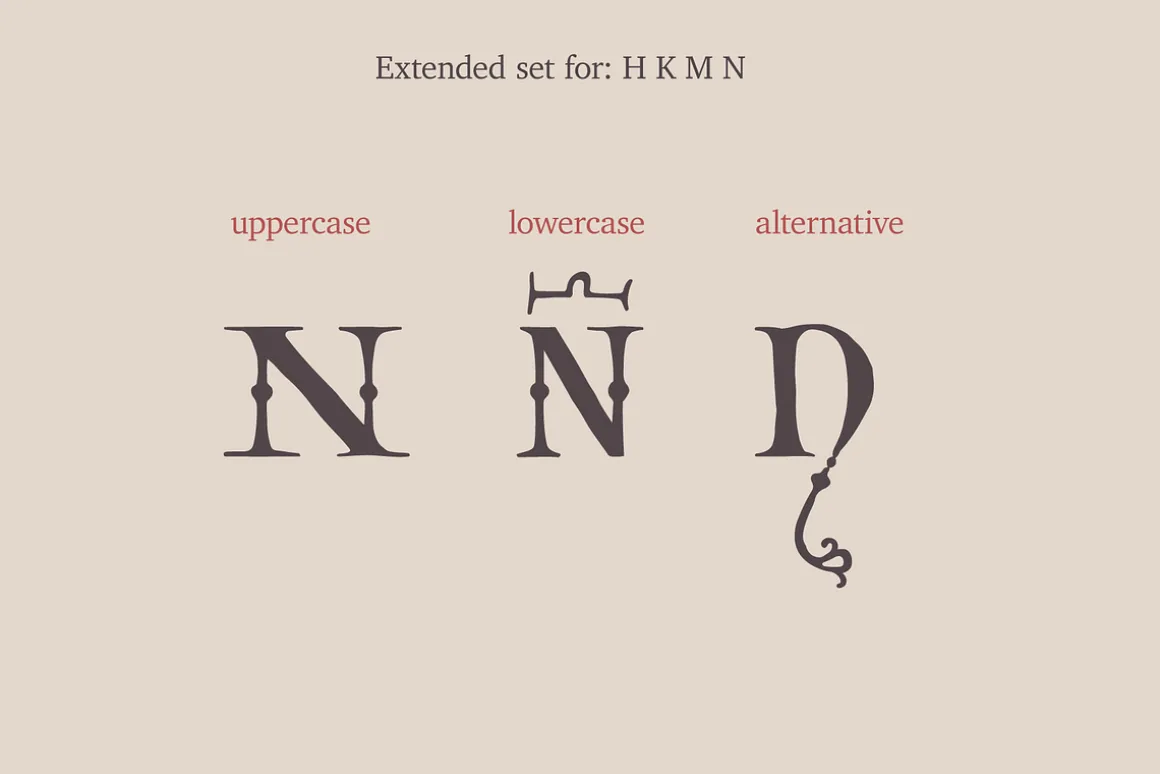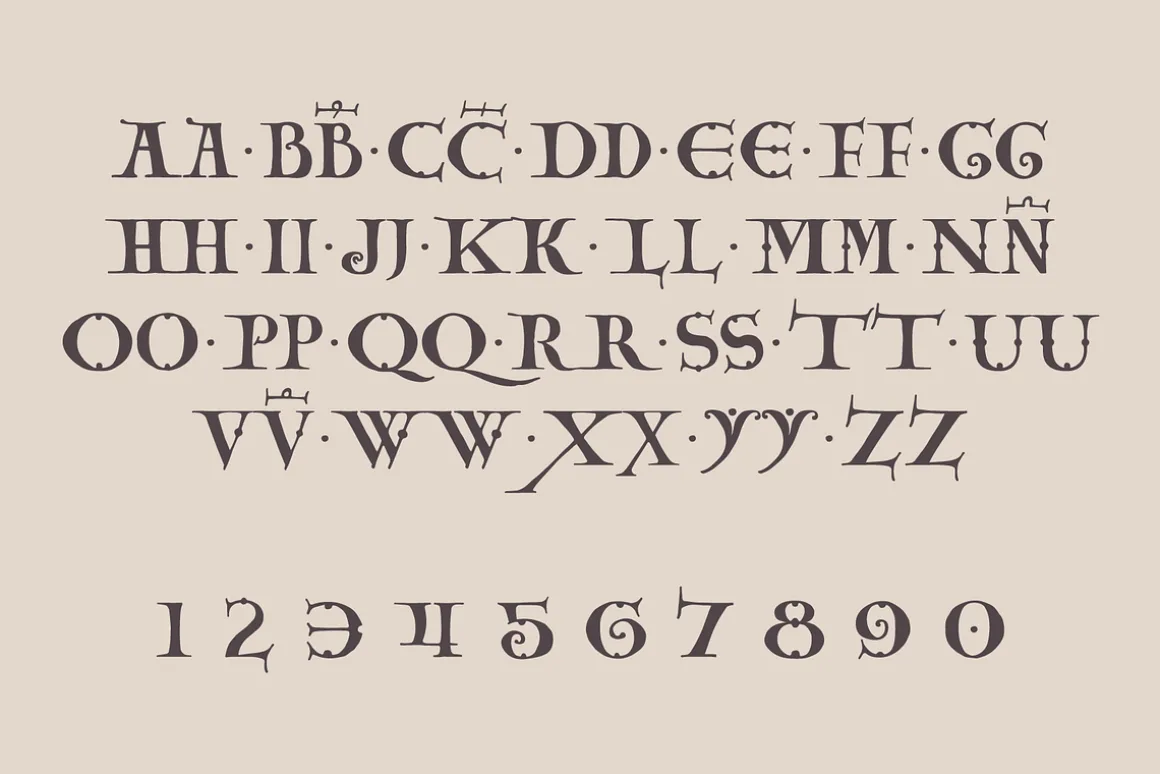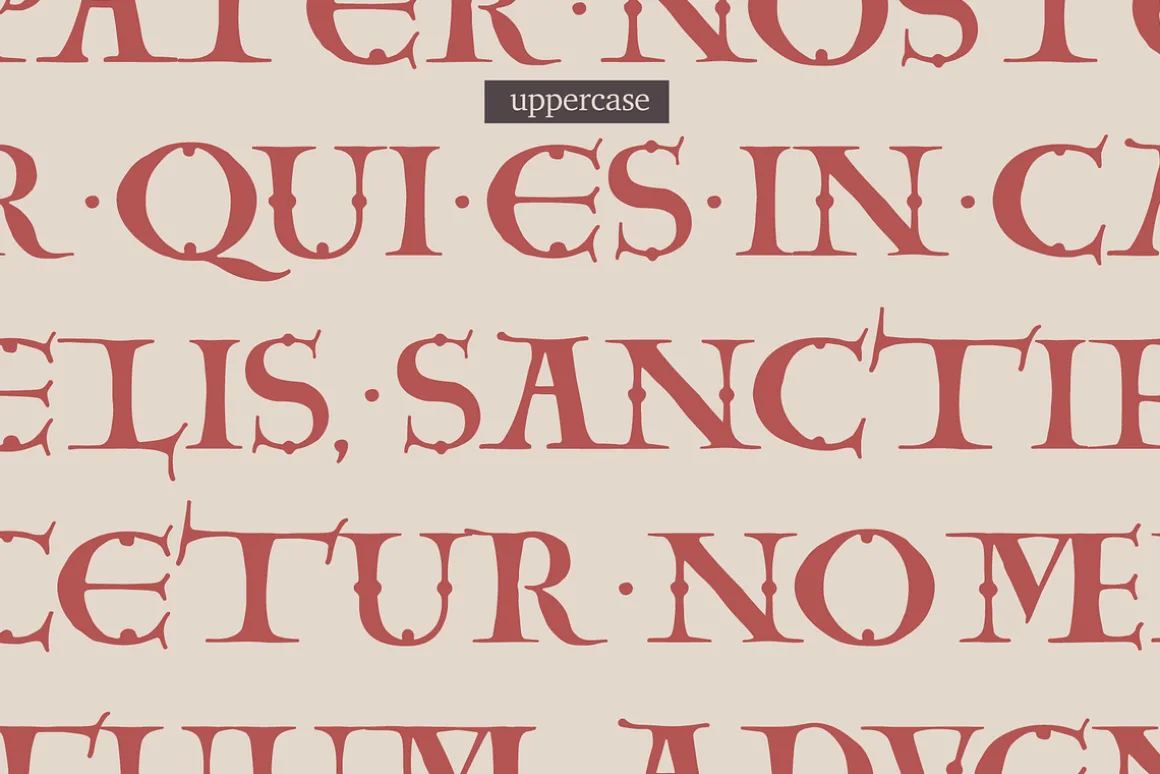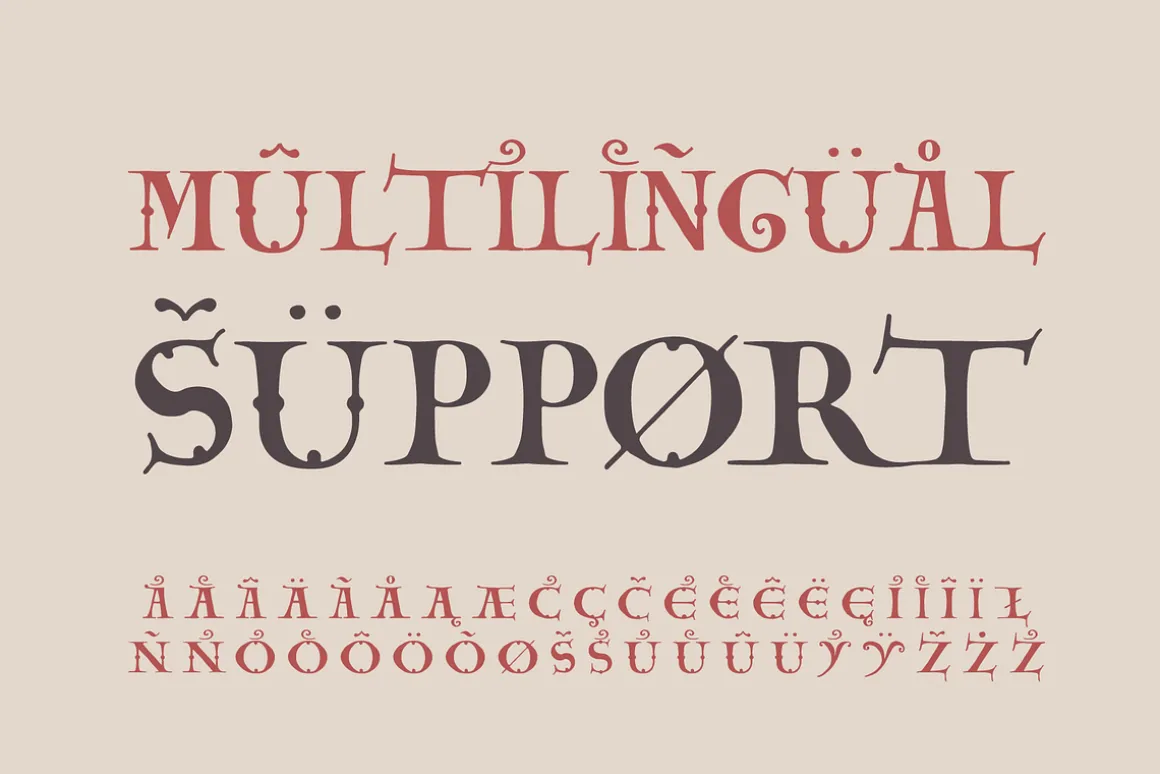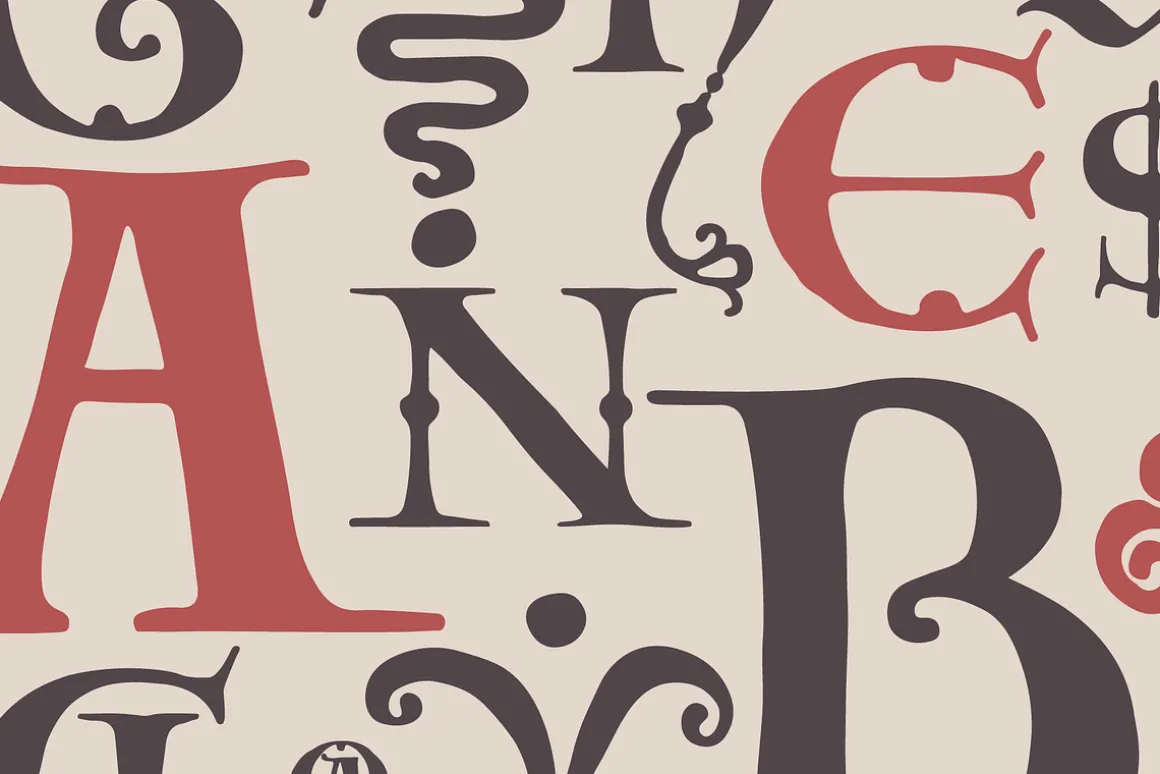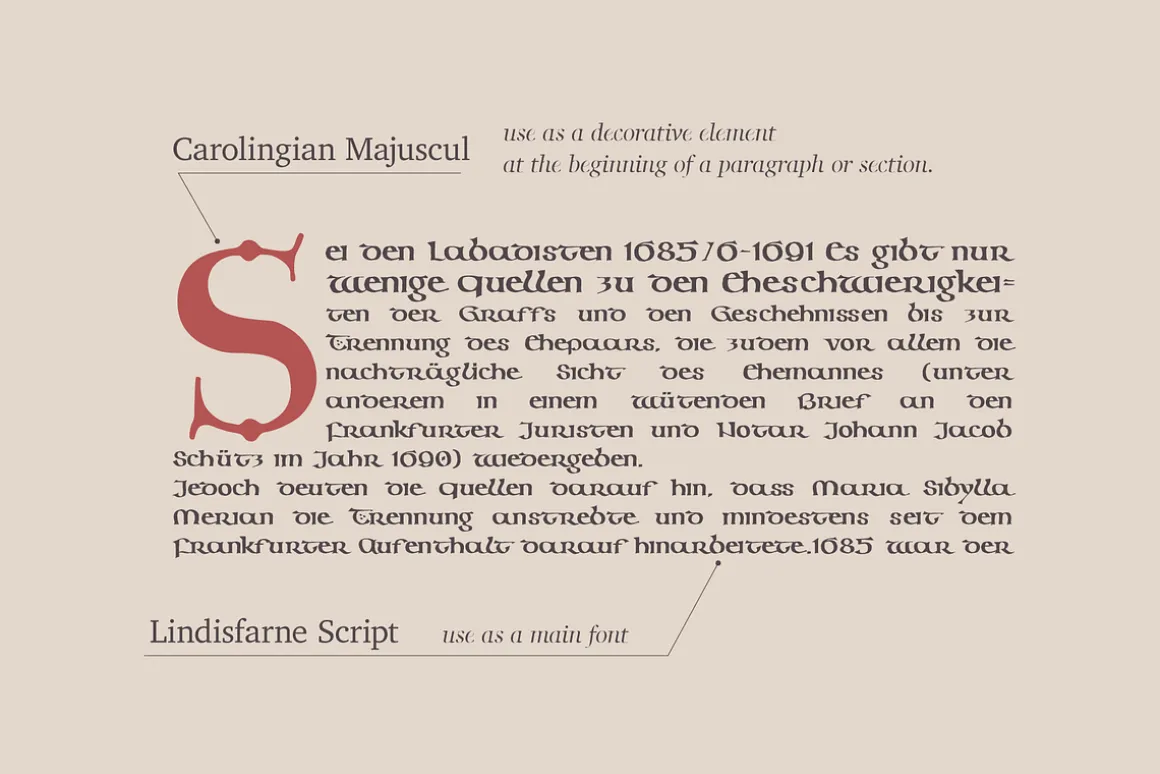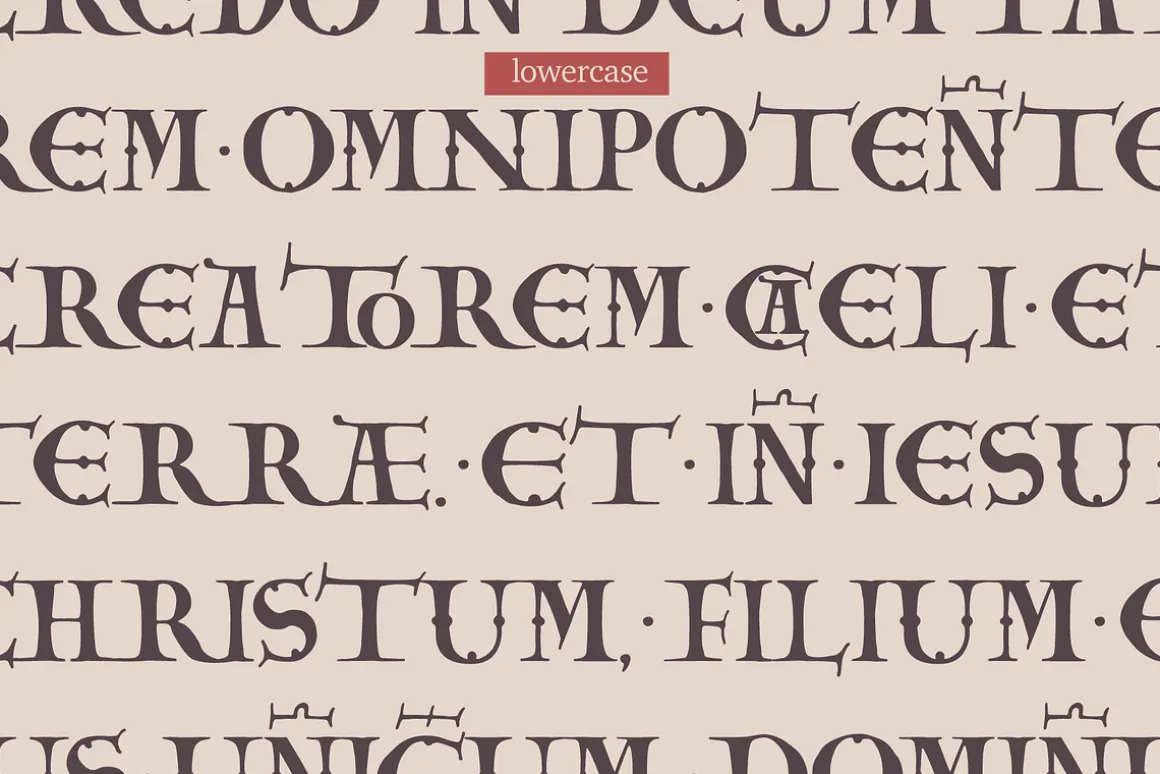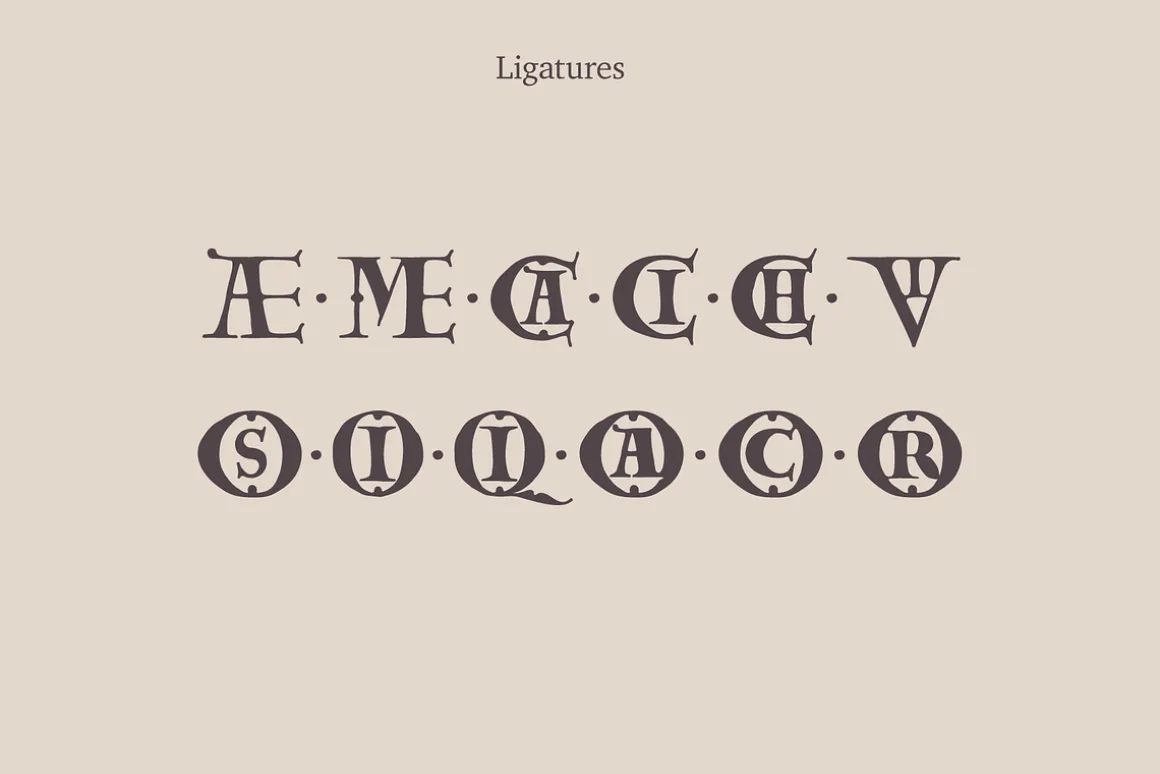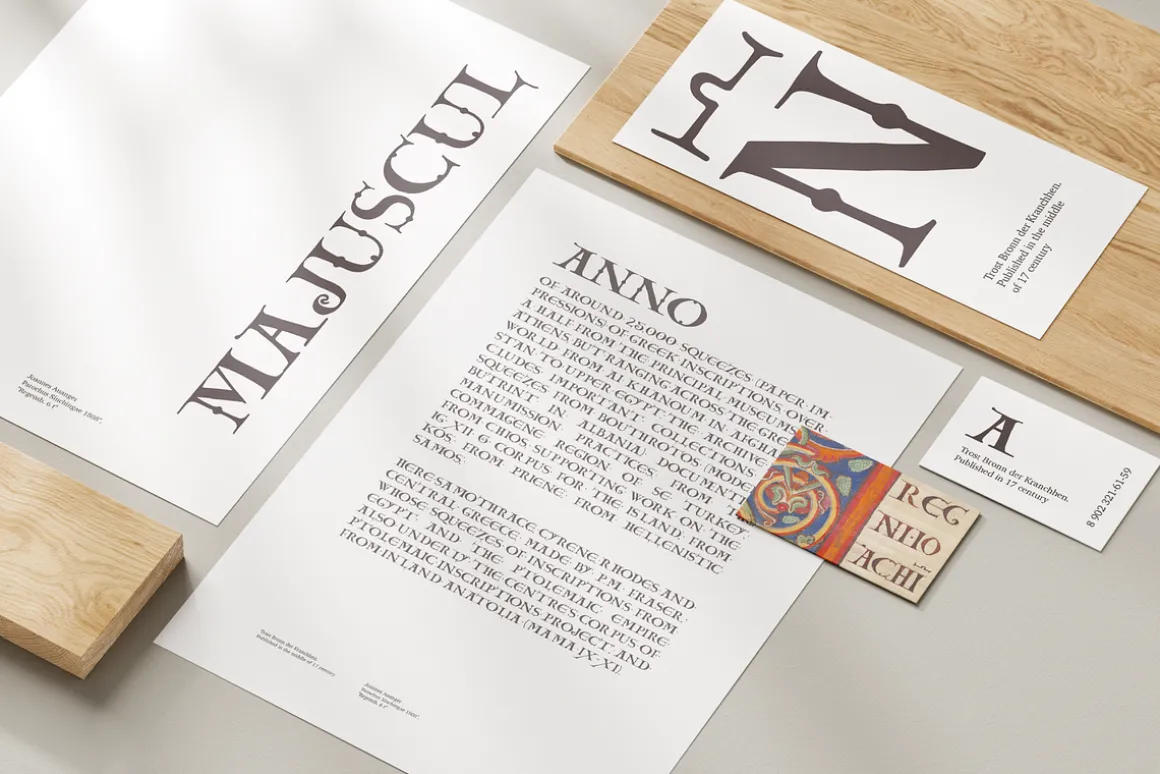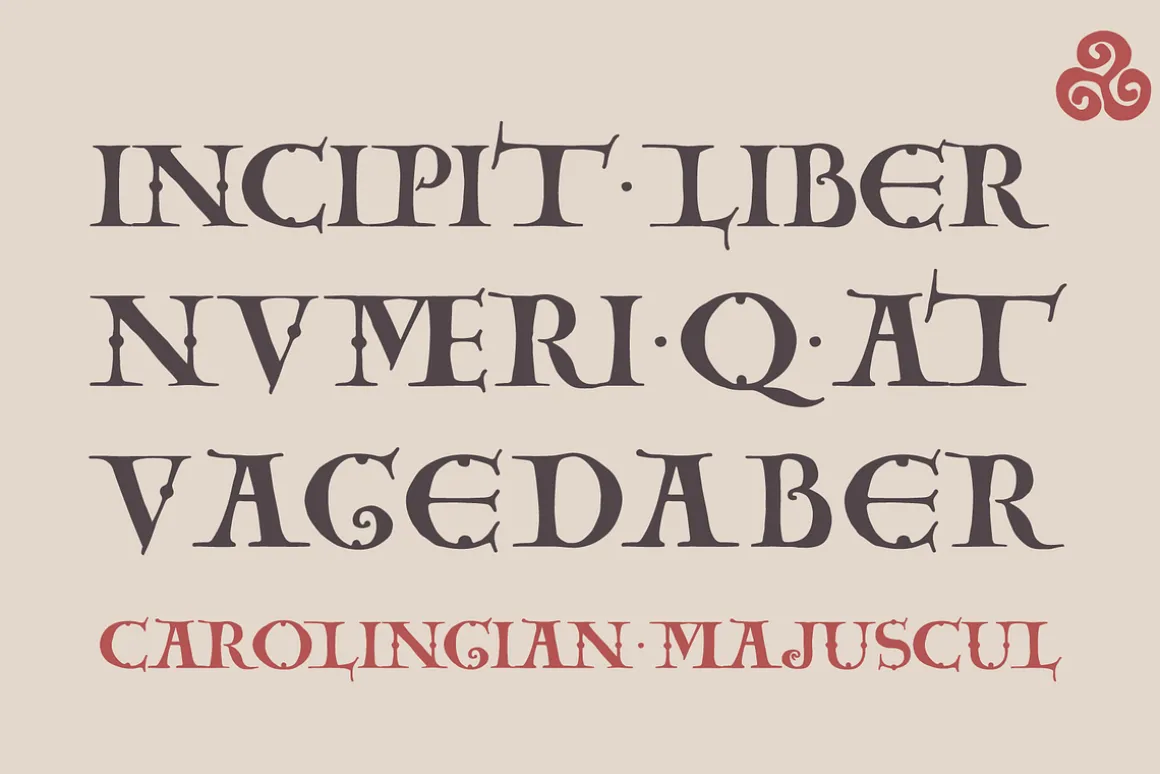
I’m happy to present you my new Romanesque font from the Codex Gigas. The manuscript was created in the early 13th century in the Benedictine monastery of Podlažice in Bohemia.
The codex was written in a handwriting atypical for the 13th century, which is actually a late version of the Carolingian minuscule.
Texts about repentance and exorcism were written in large Majuscule (Square Capitals (Imperial Roman capitals written with a brush)). Majuscules first incised in stone more than two millennia ago, married to minuscule letterforms that evolved from manuscript hands of the eighth and ninth centuries.
Majuscule font is the name given to a type of decorativeupper-caseletters used in inscriptions and, typically, at the start of a section of text in medieval manuscripts. They are characterized by their straight forms unlike rounded in Lombardic capitalswith thick, curved stems.
Majuscule capitals were also used to write words or entire phrases. The text is divided into words, punctuation marks are used consistently – periods indicate the end of a sentence and the middle of a phrase.
- Uppercase glyphs
- Numbers and symbols
- Multilingual support
- Ligatures